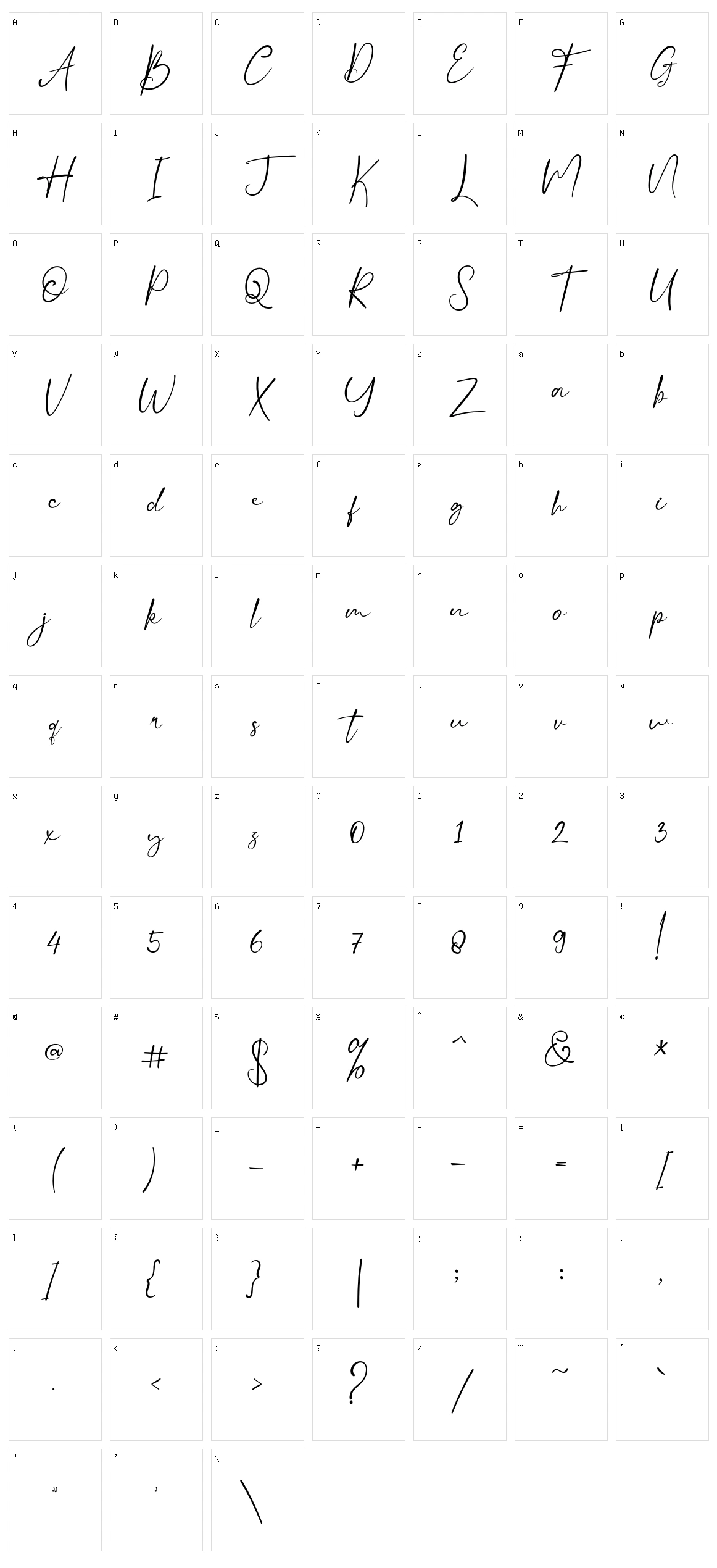
The free font Migatmare is carefully designed by Nico Muslib, showcasing a thoughtful balance of creativity and usability and falls under the Script font style. When you download the ZIP file, it contains only 89.17 KB of font files, making it lightweight and quick to download. Please review the license details below to understand permitted usage and distribution rights. If license information is not available, we recommend using this font for personal projects only or contacting the author directly for commercial usage permissions.